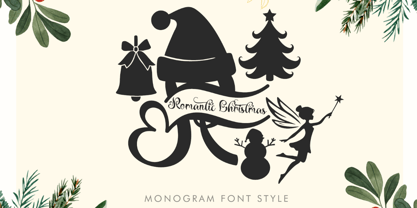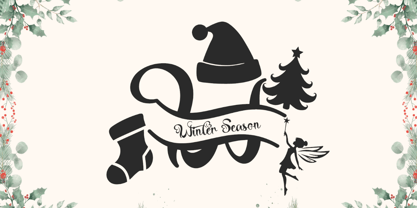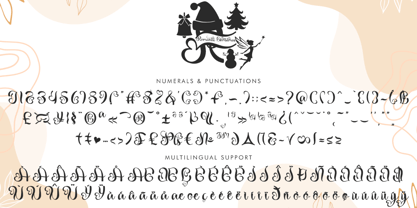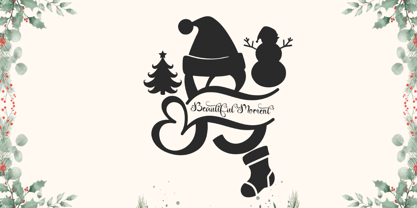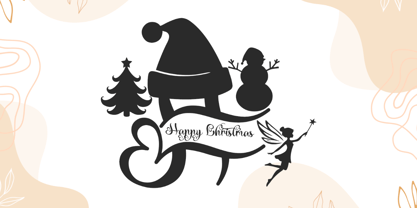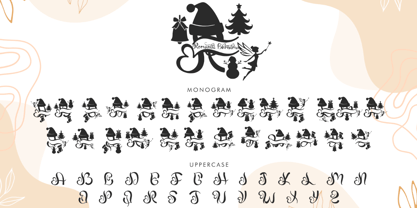
Romantic Christmas Monogram
by Yoga Letter
The Romantic Christmas Monogram Font Family was designed by Isroni Yoga Prasetya and published by Yoga Letter. Romantic Christmas Monogram contains 2 styles.
"Romantic Christmas Monogram" is a beautiful and unique monogram font. It features monograms, uppercase and lowercase letters, numerals, punctuations, and multilingual support. It's perfect for Christmas, fall, Valentine's Day, weddings, autumn, winter, vacations, holidays, prints, stickers, gifts, branding, logos, spring, summer, Halloween, and more.